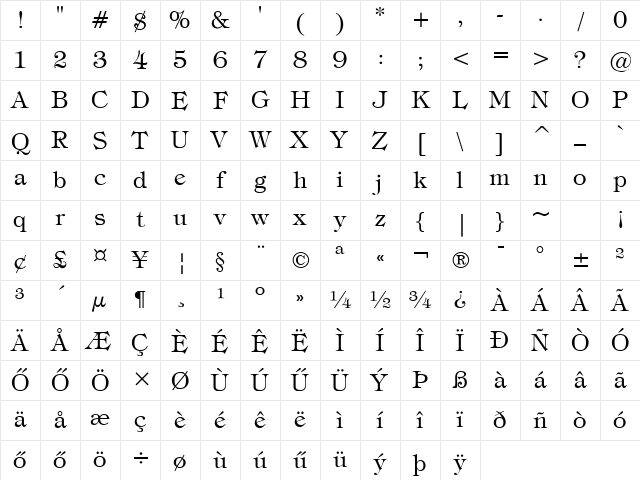
Tiffany Lt HU Normal Free Font
Tiffany Lt HU Normal
Design Context for Tiffany Lt HU
Tiffany Lt HU is a composed and adaptable typeface that performs quietly and consistently across a wide range of design contexts. Its slender proportions lend an understated elegance to any composition.